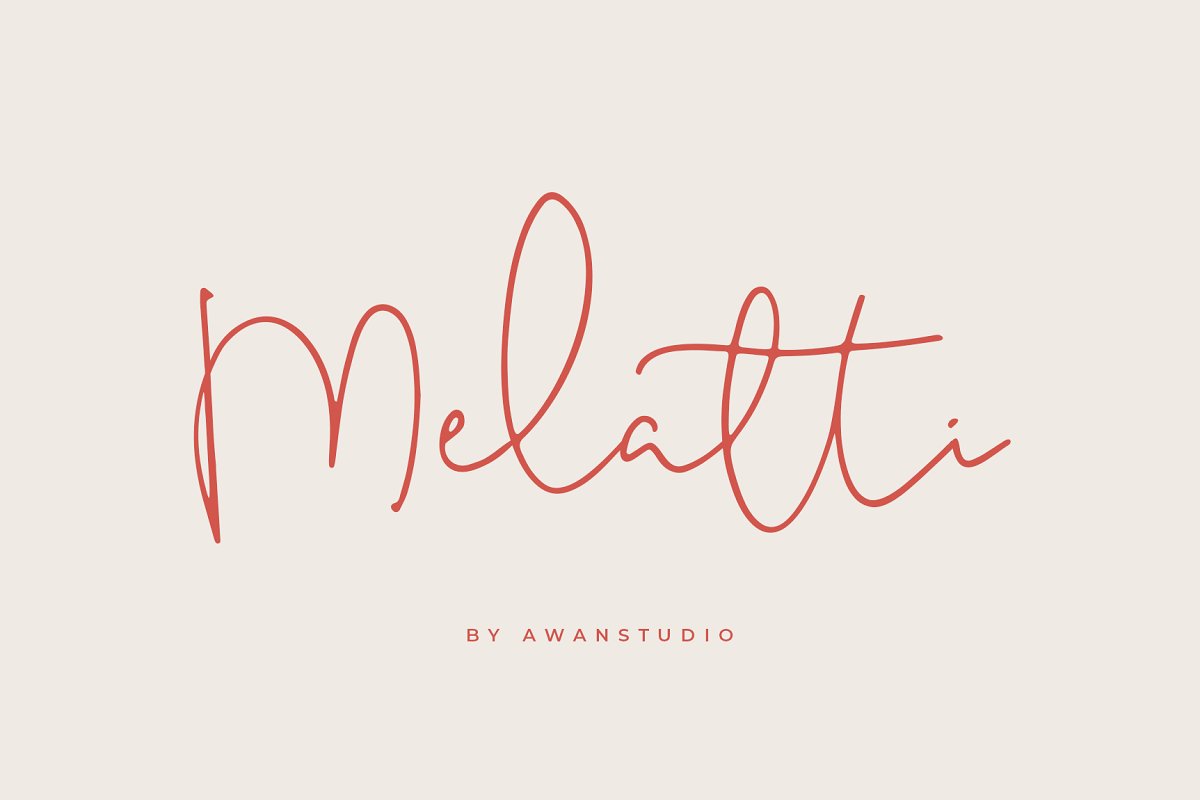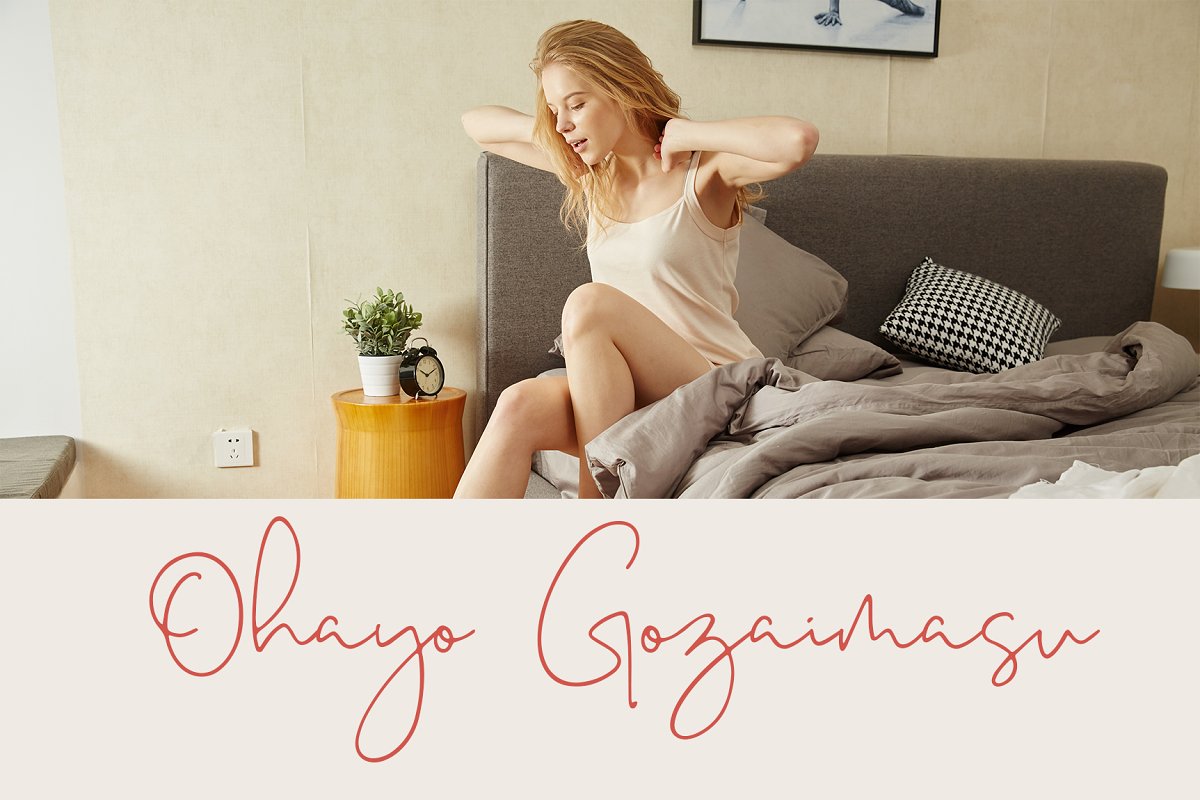
About the Melatti Handwritten Font
Melatti is a beautiful handwritten font with an amazing feel, It will add a smart charm to any design project!FeaturesUppercaseLowercaseNumeralsPunctuationLigatures Multilanguage supportFiles IncludedMelatti, otfMelatti, ttfCheers & enjoy the fontawanstudio